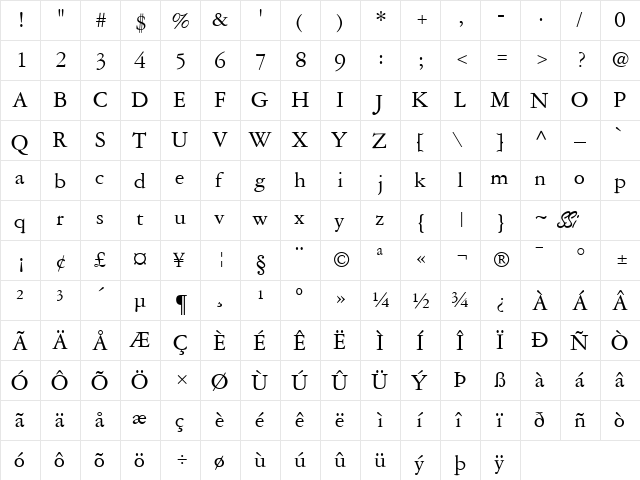
Garamond Reprise SSi Regular
Garamond Reprise SSi is a composed and adaptable typeface that performs quietly and consistently across a wide range of design contexts.